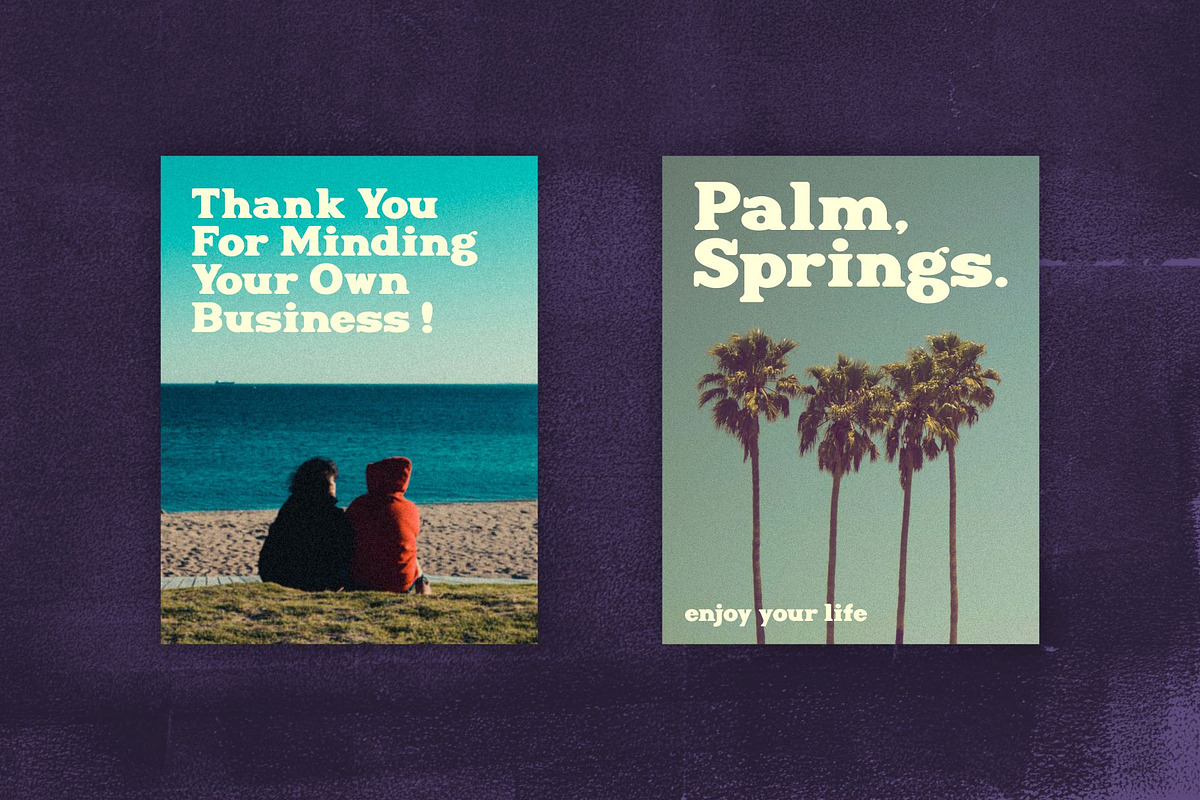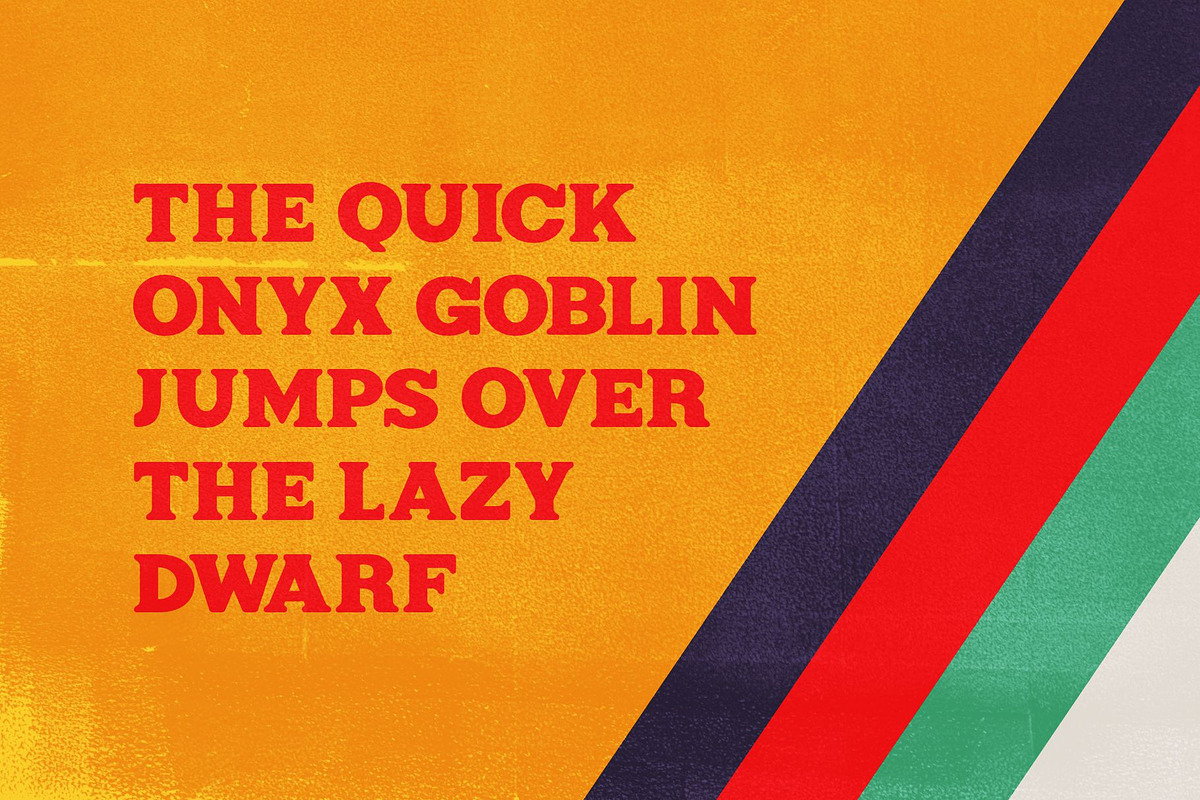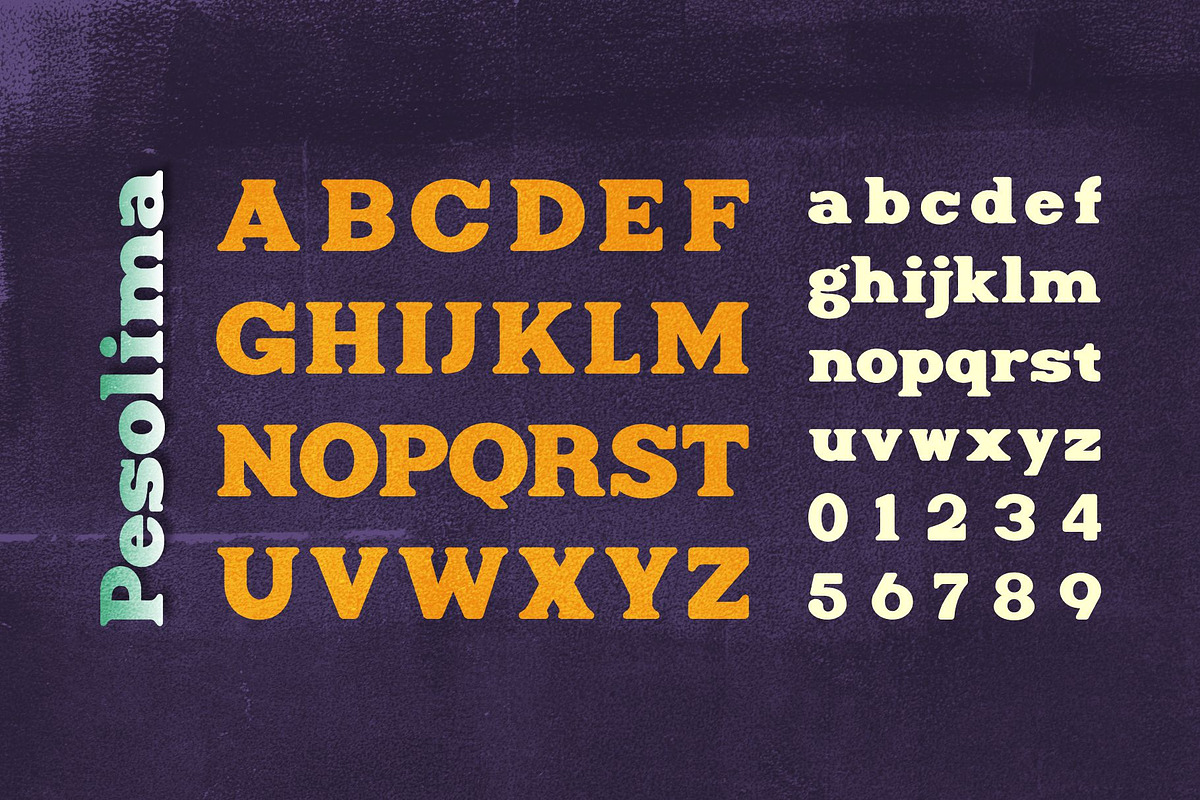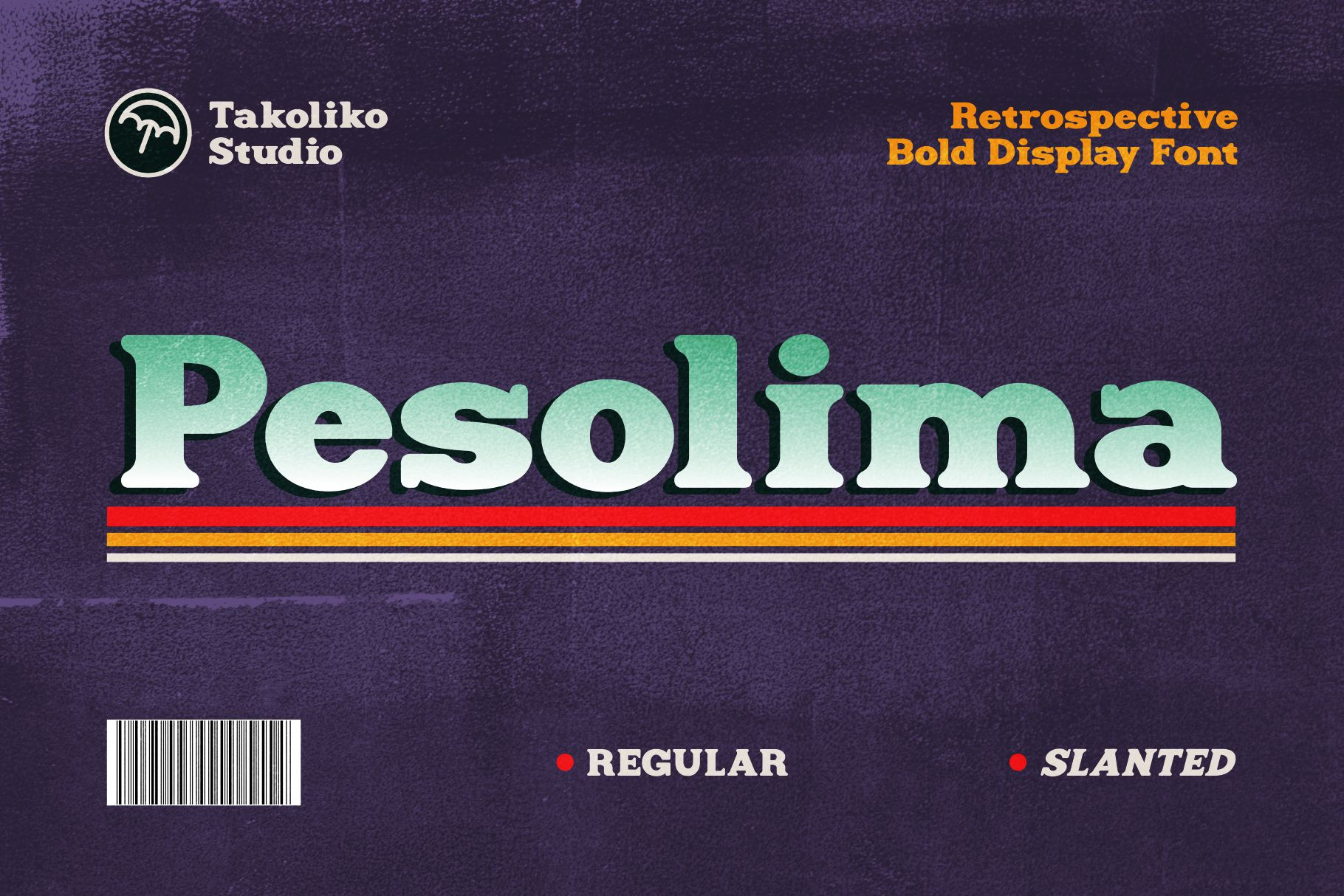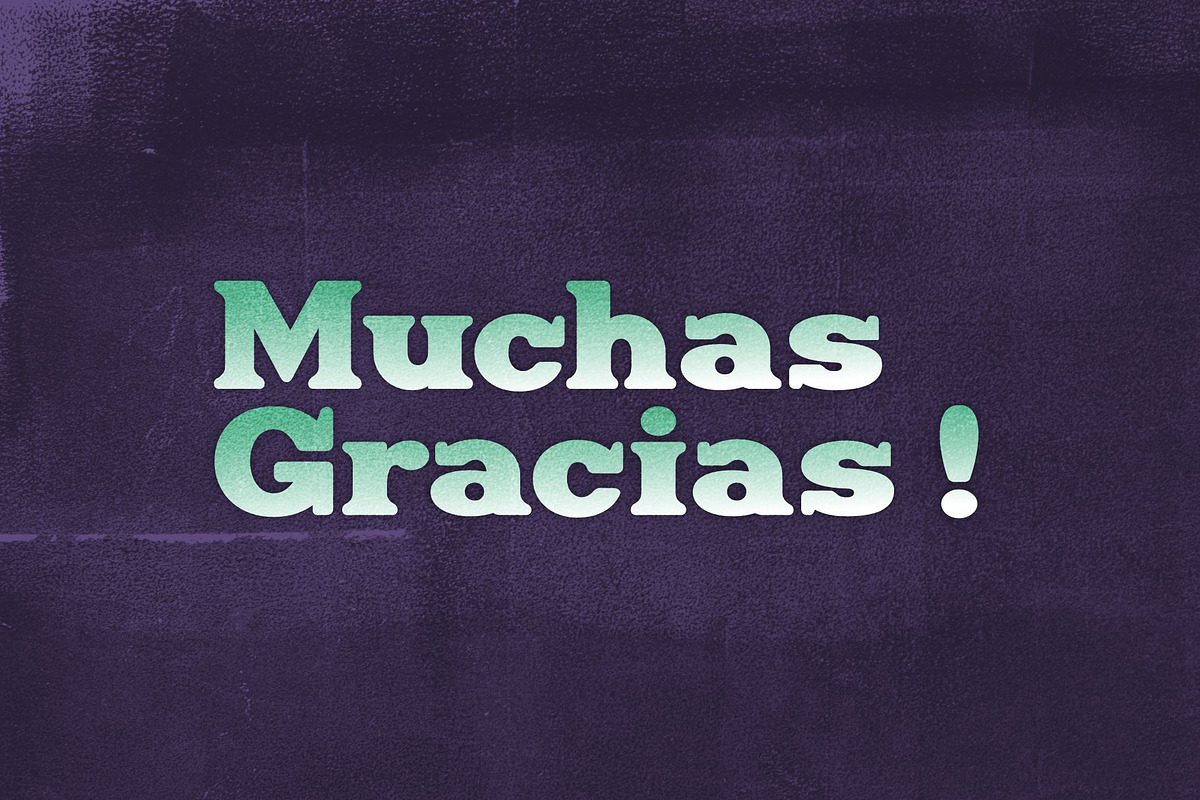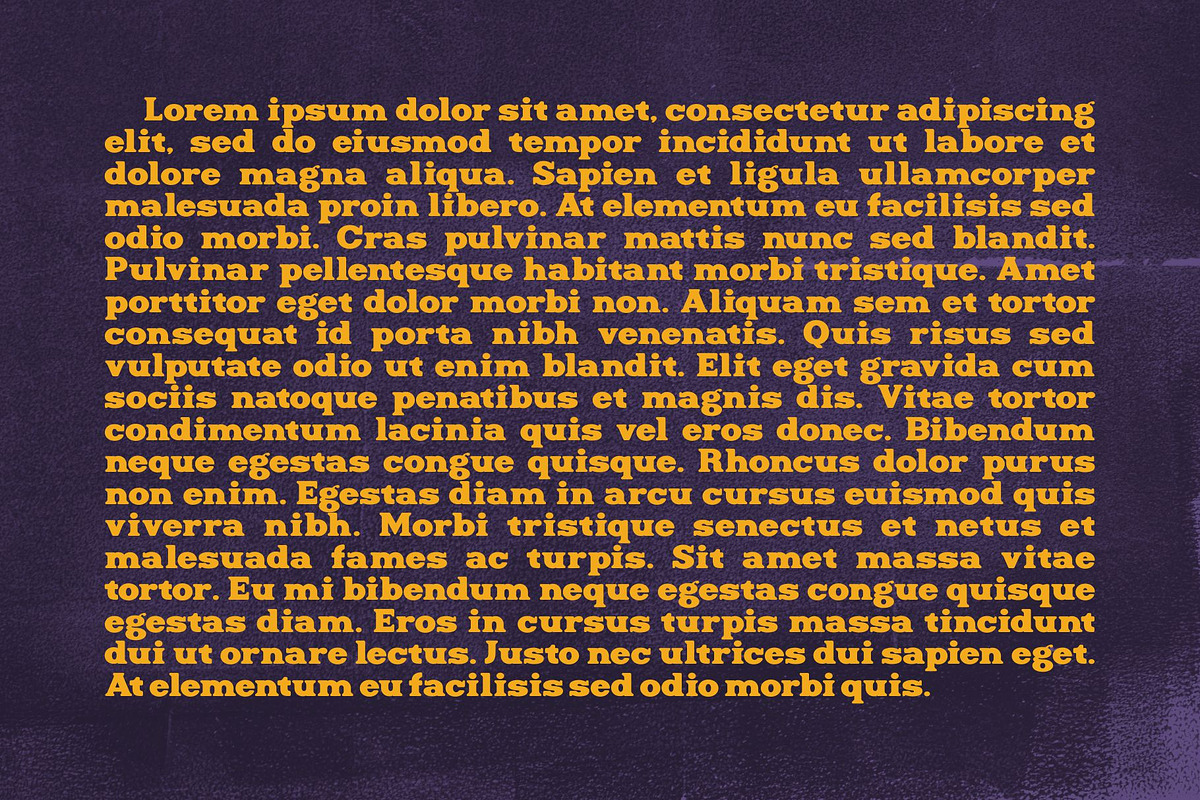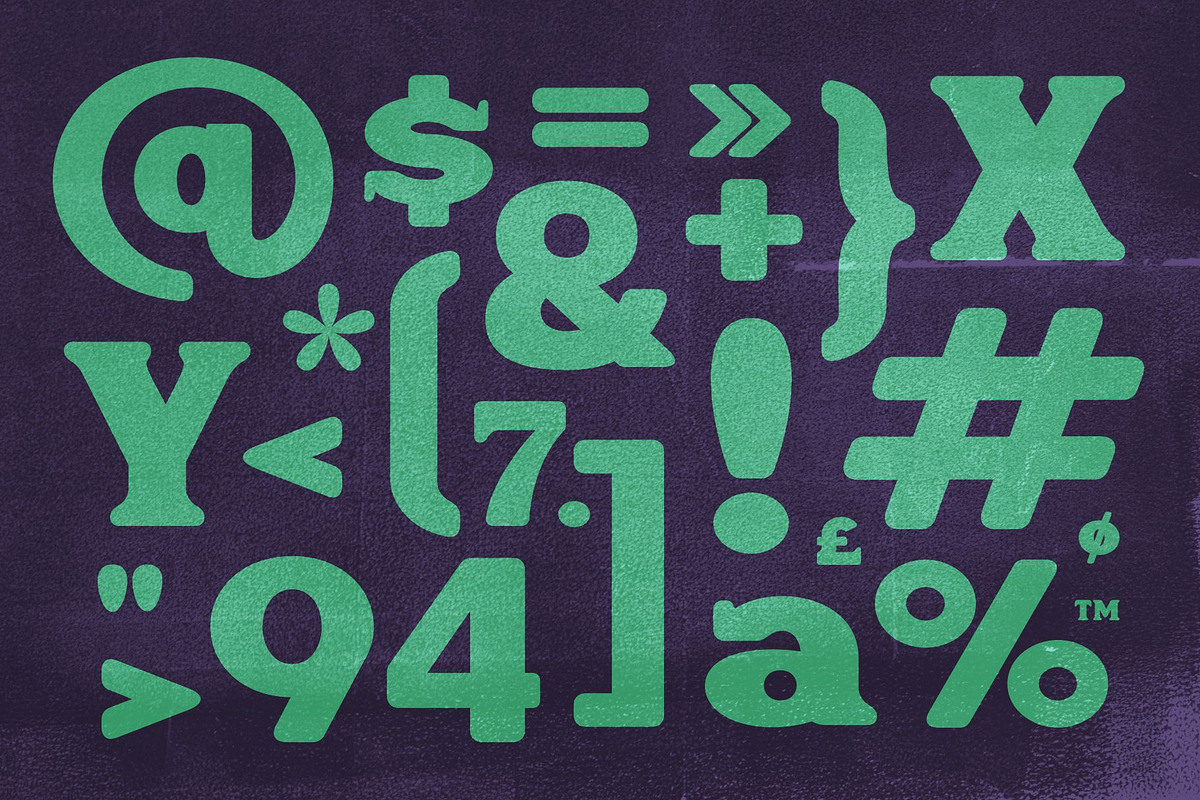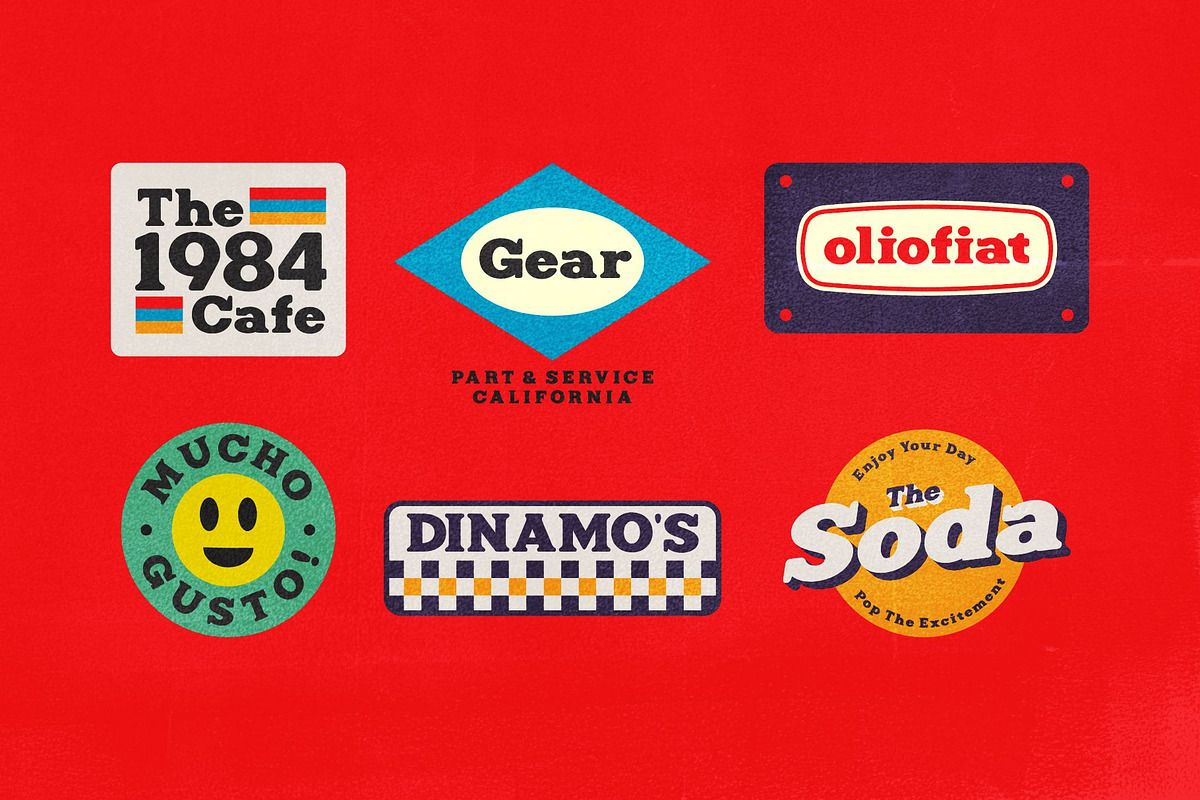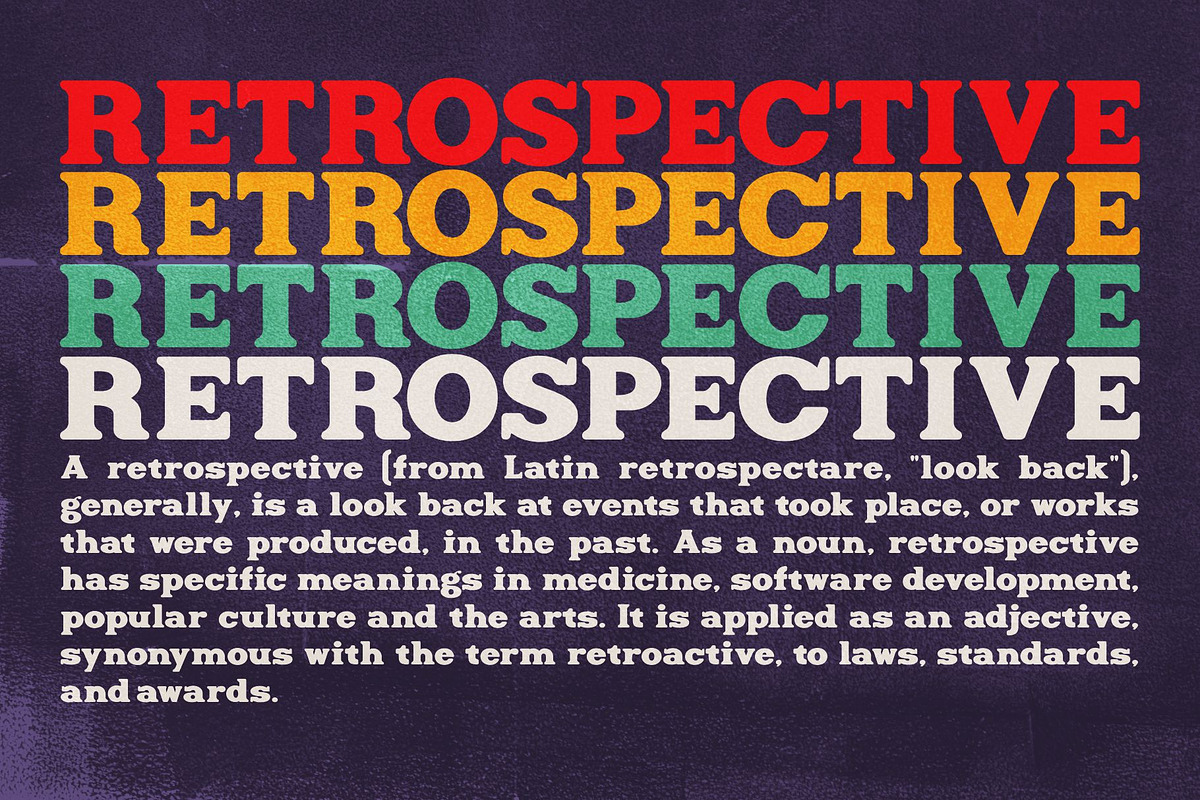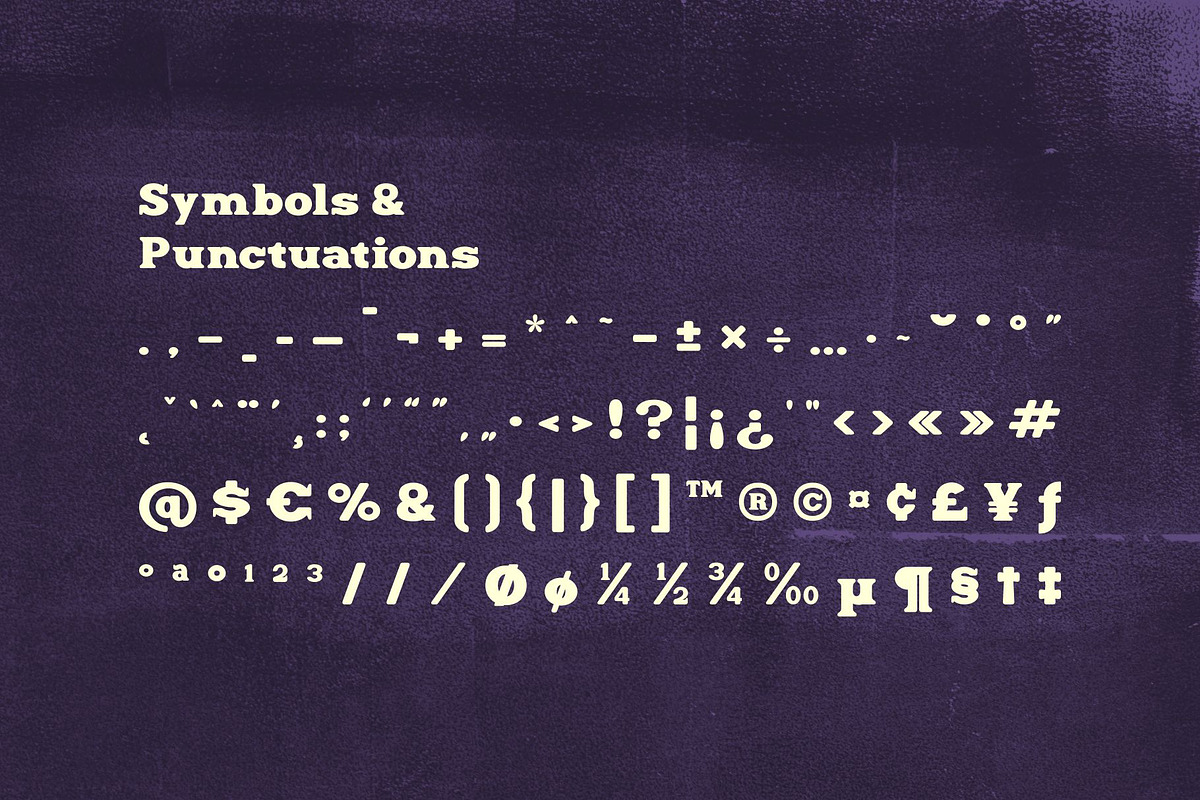
Pesolima - Bold Display Font
Pesolima is a retrospective bold display font. Inspire by a retro serif vibe that used in 1980s and 1990s. It have a nostalgic feeling on it. It have a versatile appearance that you can use on many project. The bold character make it good to improve your design and information that you want to communicate with. So it can help the readability for the audience. So enjoy the font and make a cool project with Pesolima. Hope you like it. Muchas gracias!